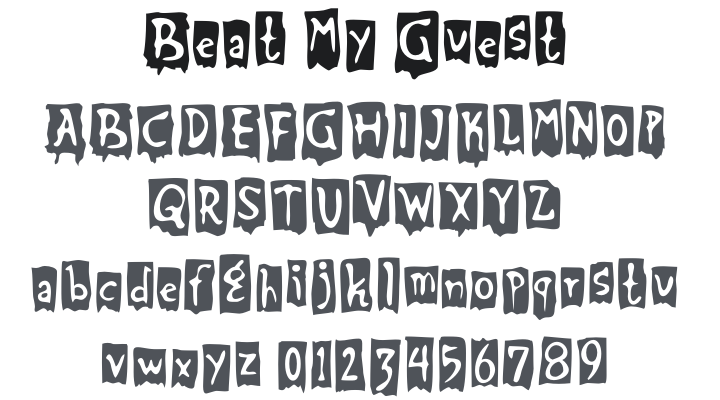
Beat My Guest Font
About Beat My Guest
Beat My Guest is a bold horror display typeface where each letter is enclosed in a ragged, torn black tile — like letters cut from a ransom note or ripped from a decaying poster, with white serif characters sitting inside rough, irregularly edged black blocks. The combination of playful letterforms and menacing containers creates a genuinely unsettling personality. Perfect for Halloween designs, horror game titles, punk branding, and any headline needing a frightening, ransom-note atmosphere.